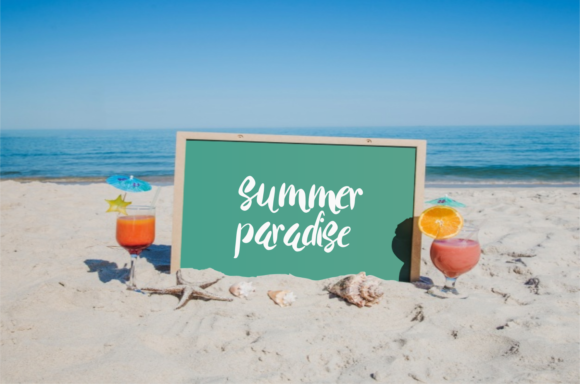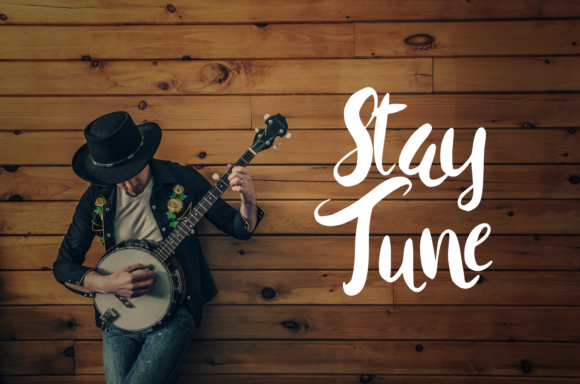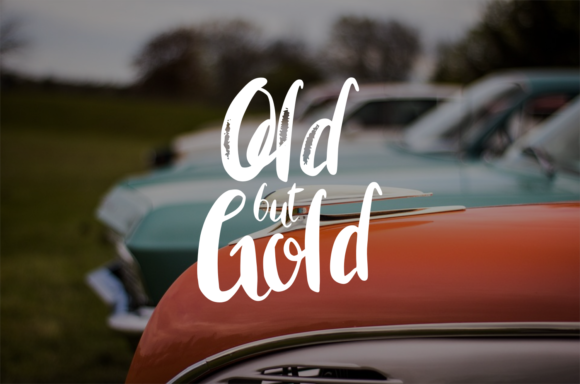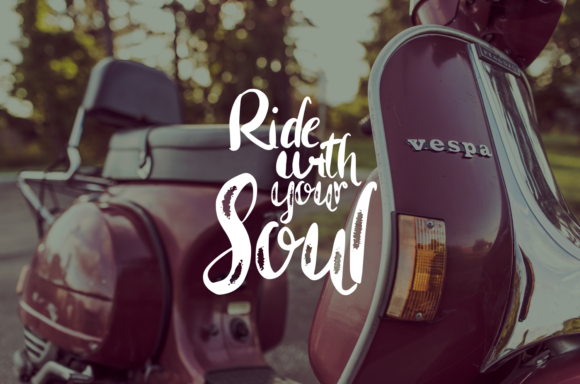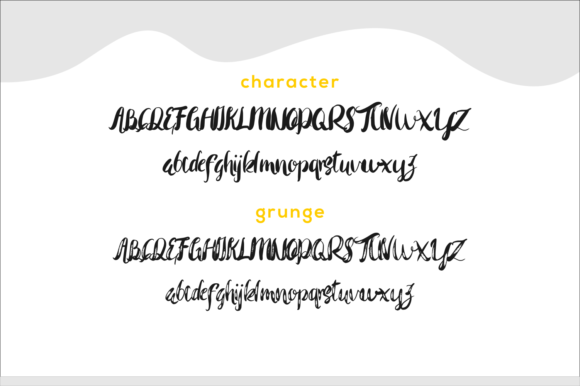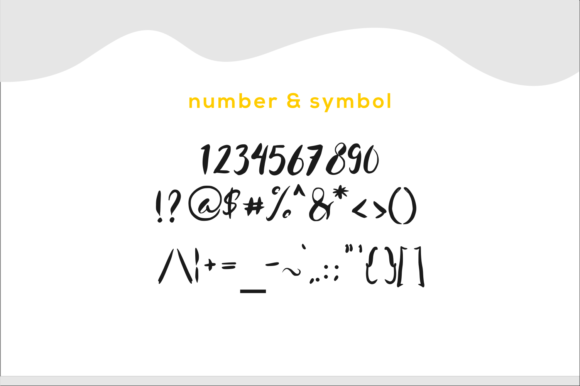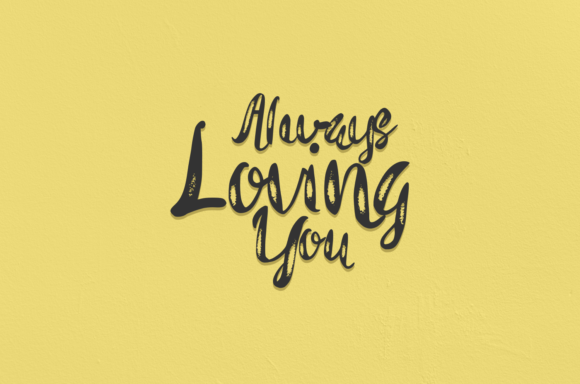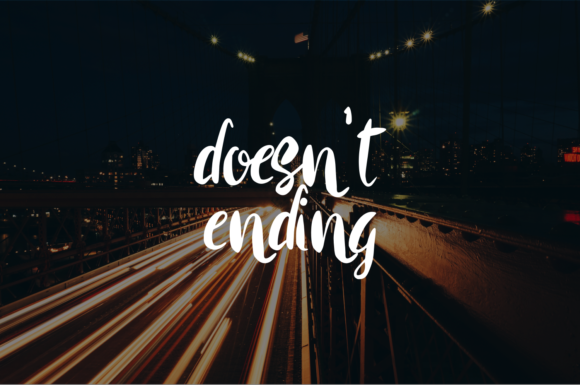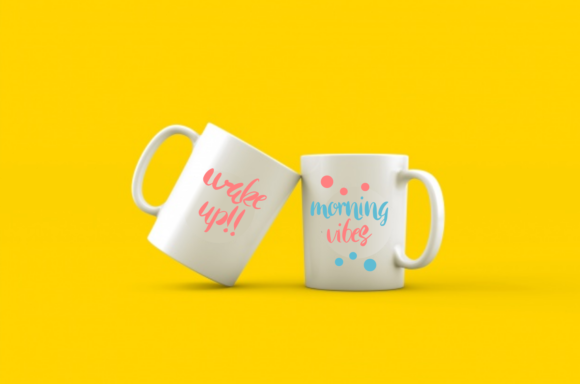
Rohman Font
About Rohman Font
Rohman is a lovely and romantic handwritten font with a contemporary twist. It will effortlessly elevate any design project!